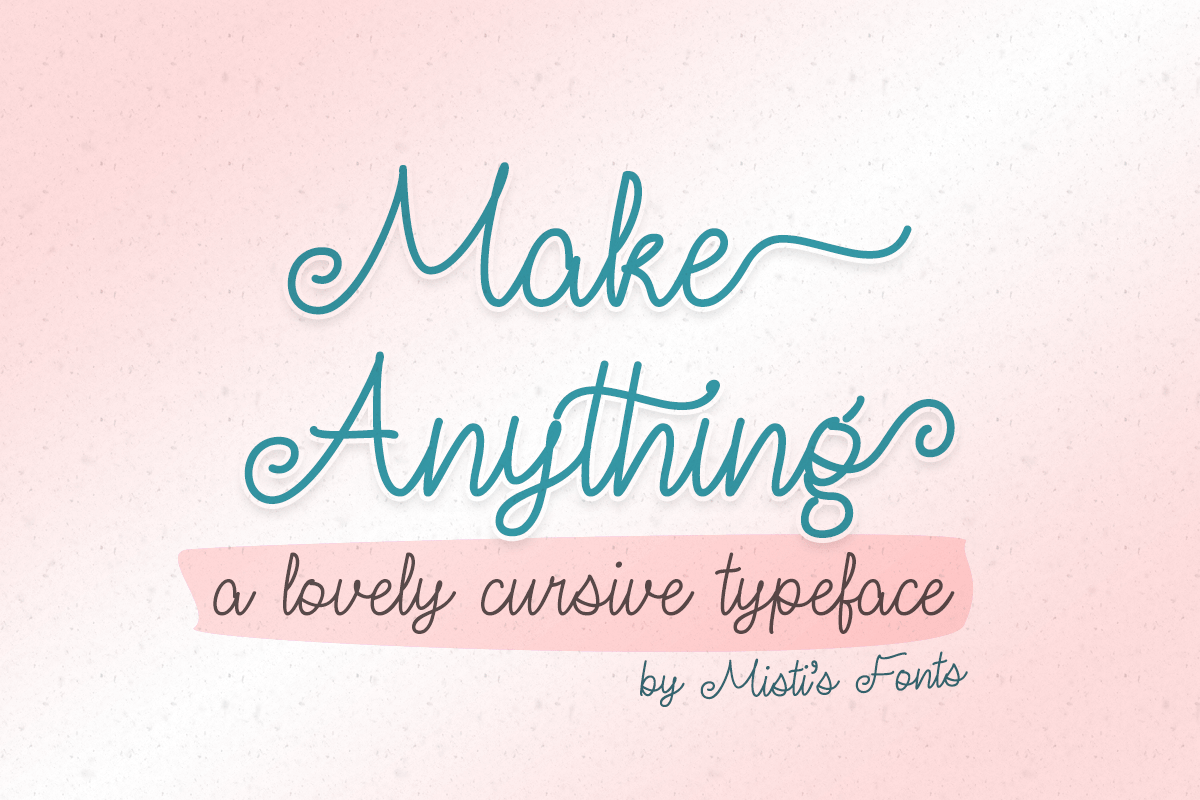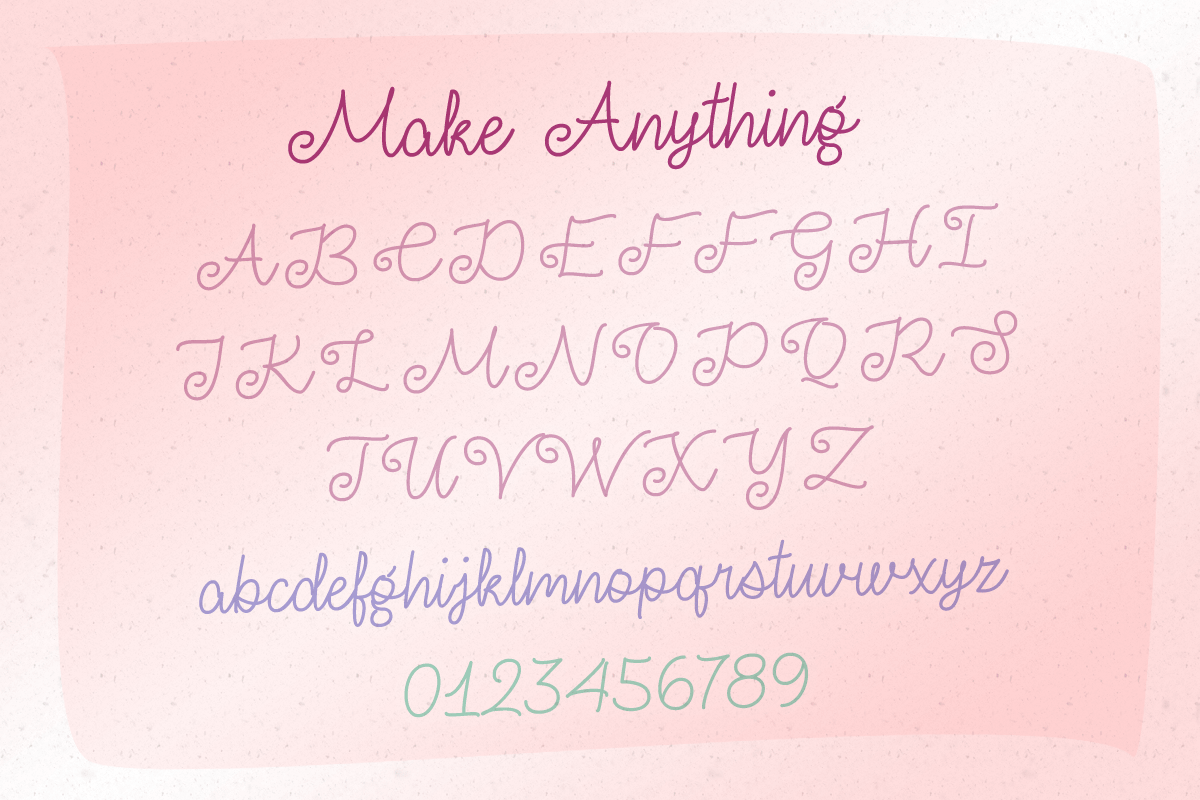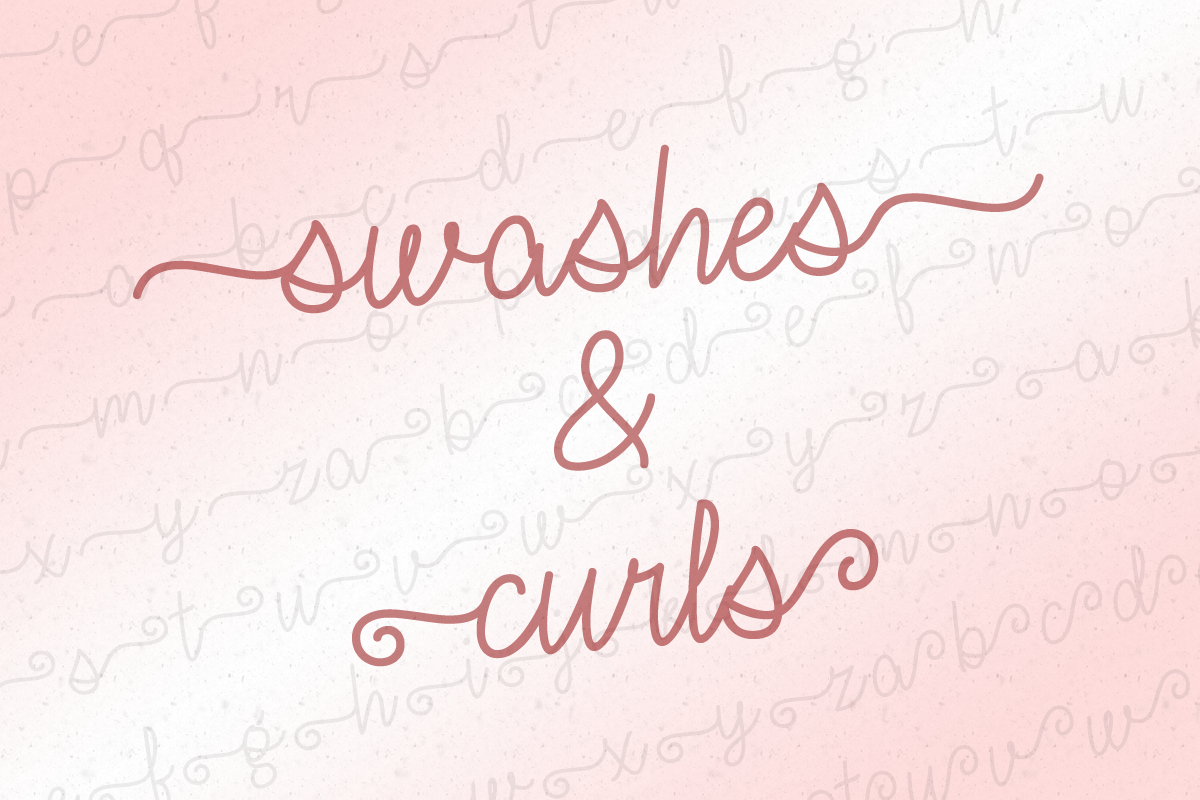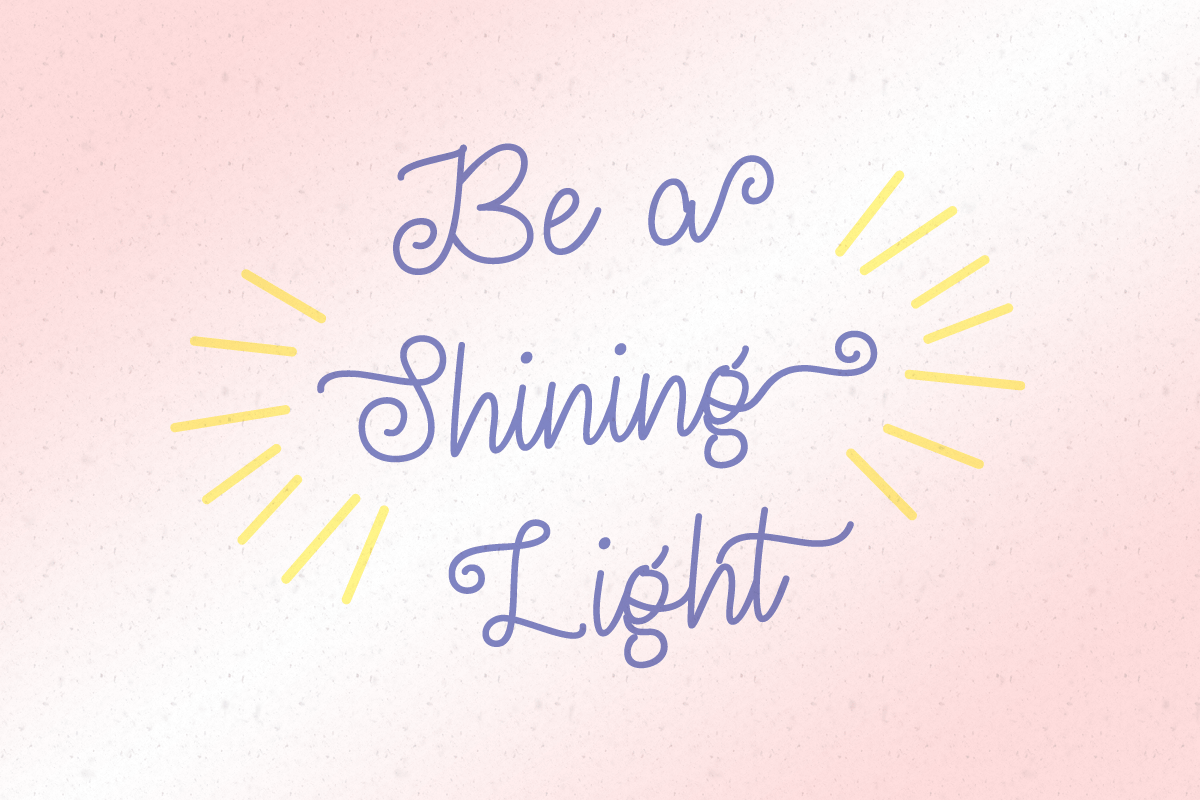
Make Anything
Make Anything is a magical handwritten font carefully created with a touch of elegance. This is a beautiful combination of timeless elegance and authentic calligraphy. It features an incredibly classic style, while still keeping a friendly feel. This font is the perfect fit for making original and outstanding designs.